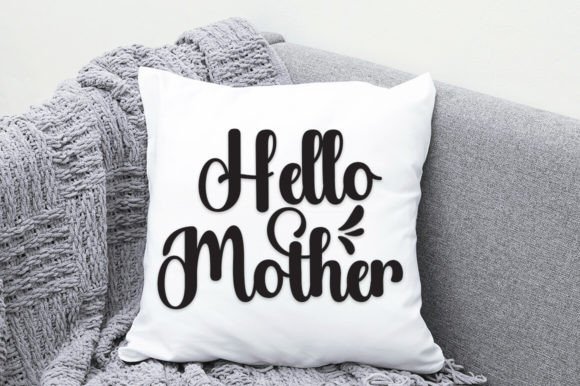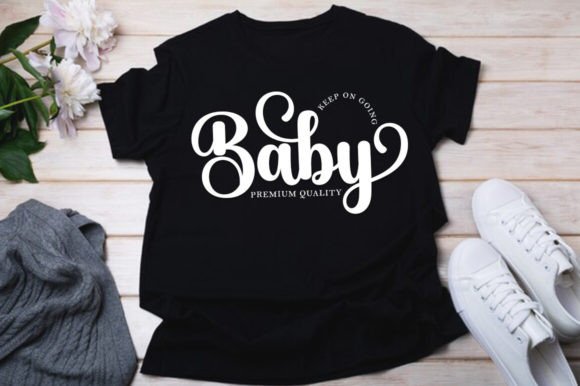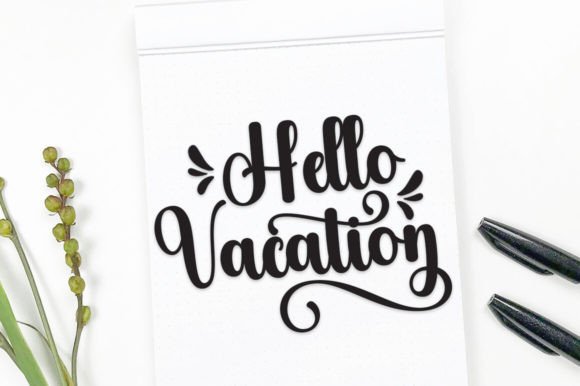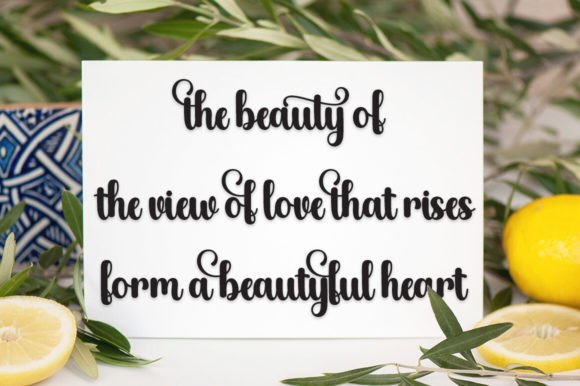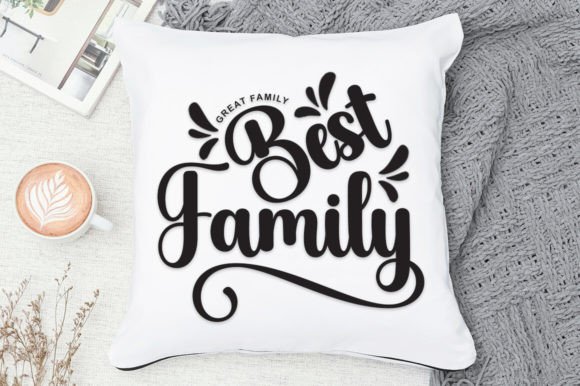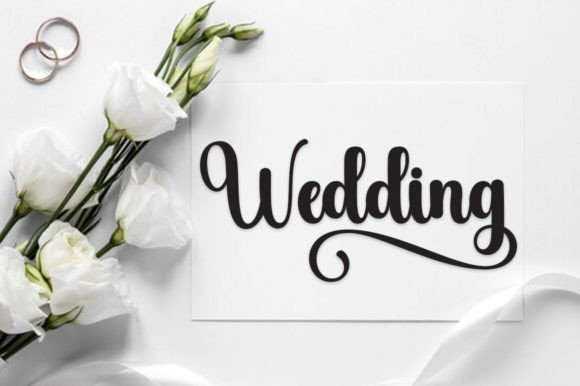
The Birth of Elegance: Discovering Baby Ghubby Font
As a designer, have you ever found yourself in the midst of a creative crisis, staring at a blank canvas, searching for that perfect font to bring your vision to life? The struggle is real, but the solution might be closer than you think. Enter the charming Baby Ghubby Font, a stunning script font that’s about to become your new best friend.
Baby Ghubby Font is a stylish homage to classic calligraphy, designed to elevate any design project to the highest level. Whether you’re working on branding, titles, wedding designs, invitations, signs, logos, labels, or more, this font is the perfect addition to your toolkit. Its elegant and charming feel makes it a valuable asset for designers looking to add a touch of sophistication to their work.
Baby Ghubby Font Key Features
- Unique Characteristics: Baby Ghubby Font has a unique, playful design with rounded edges and a cursive feel, making it ideal for children’s books, nursery rhymes, and other creative projects.
- Character Set: Baby Ghubby Font includes a wide range of characters, including uppercase and lowercase letters, numbers, punctuation marks, and special characters.
- Font Style: Baby Ghubby Font is available in a single font style, but it can be easily customized using font editing software to create different styles and effects.
Baby Ghubby Font Review
Overall, I’d say the Baby Ghubby Font is a cute and playful addition to any design project. ✨ It’s great for creating a whimsical feel, especially when used for children’s products or family-oriented brands. The font is highly legible, even at smaller font sizes.
- Highly legible, even at smaller font sizes
- Great for creating a whimsical feel
- Perfect for children’s products or family-oriented brands
- Available in a range of weights and styles
However, there are some limitations to consider. ⚠️ The font may not be suitable for more serious or professional brands, as it can come across as too childish. Additionally, the font may not be as versatile as some other fonts on the market.
- May not be suitable for more serious or professional brands
- May not be as versatile as some other fonts on the market
- Some users may find the font too playful or childish
Overall, I’d give the Baby Ghubby Font 3.5 out of 5 stars. While it’s a great choice for certain projects, it may not be the best fit for every design task. With a little creativity and restraint, however, it can be a fun and effective addition to your design arsenal.
Practical Application Guide: Baby Ghubby Font
1. Use the Baby Ghubby Font for creative, playful designs that require a whimsical touch.
2. Experiment with different font sizes and colors to create visual interest.
3. Combine the Baby Ghubby Font with other fonts to create a unique and eye-catching design.
The Baby Ghubby Font is perfect for:
1. Children’s book covers and illustrations
2. Party invitations and decorations
3. Social media graphics and advertisements
4. Branding and marketing materials for young, playful businesses
Alternatives to Baby Ghubby Font
Great Vibes is a modern, handwritten font perfect for creating a friendly and approachable feel in your designs. It’s ideal for use in titles, headings, and quotes, where you want to add a touch of personality and warmth. Compared to Baby Ghubby Font, Great Vibes has a more fluid and dynamic feel, making it suitable for a wider range of applications.
Carolyna Pro is a beautiful, elegant script font that’s perfect for creating a sophisticated and luxurious feel in your designs. It’s ideal for use in titles, headings, and body text, where you want to add a touch of refinement and sophistication. Compared to Baby Ghubby Font, Carolyna Pro has a more polished and refined feel, making it suitable for high-end branding and marketing materials.